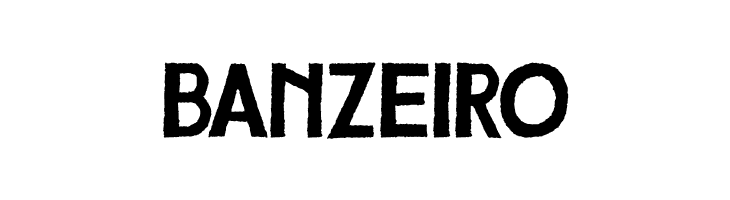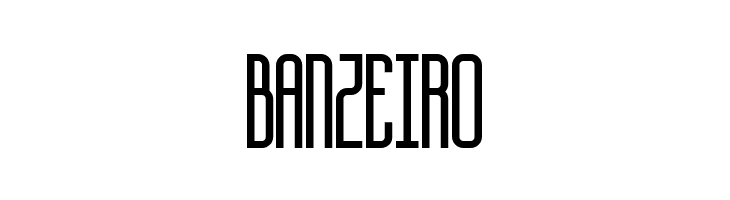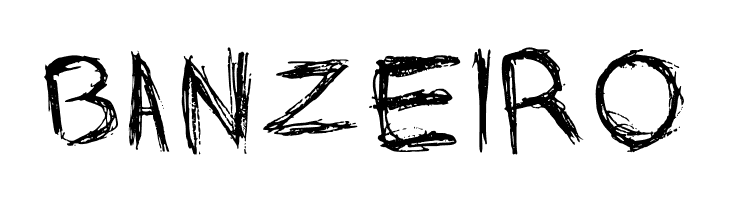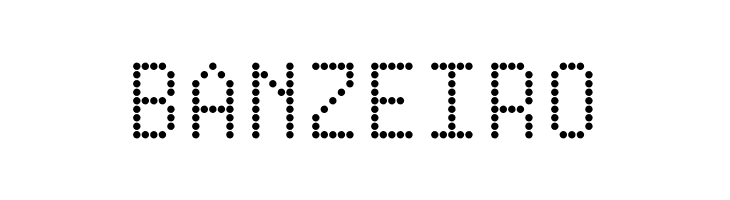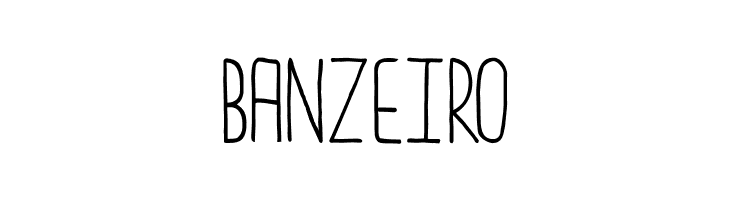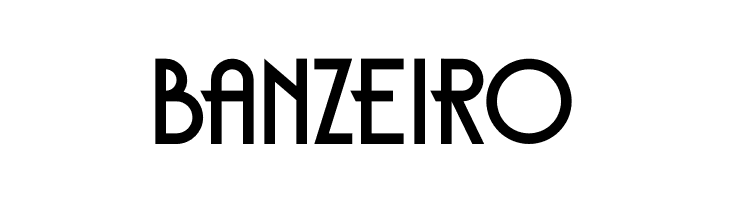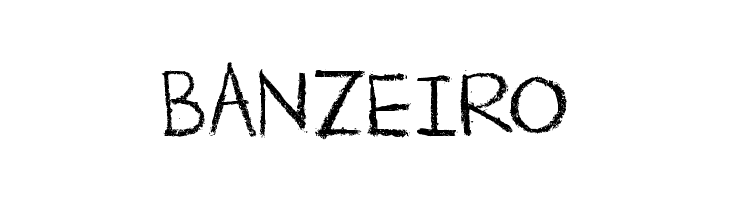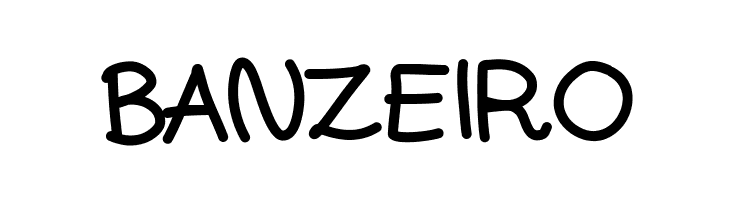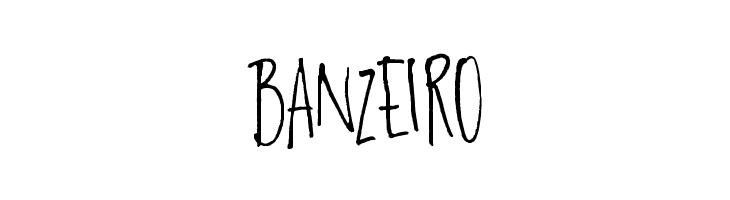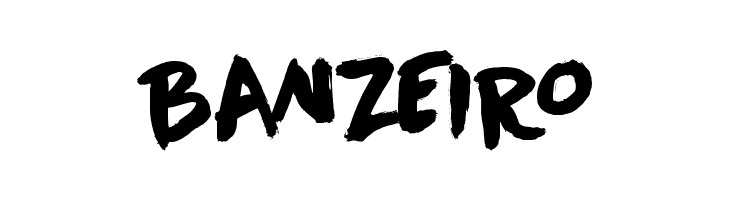
A playful, handwritten font with a casual and whimsical style.
Highly decorative and ornamental motif-based font.
Stencil-style DJ portraits as font glyphs.
A dynamic, slanted handwritten font with a casual elegance.
A playful, rounded font with a whimsical, handwritten style.
Animal illustrations form each character in a decorative, playful style.
A bold, brushstroke font with a hand-painted, artistic style.
A bold, brush-style font with dynamic strokes and flame-inspired numerals.
A bold, hand-drawn font with a dynamic and slightly distressed appearance.
A playful, crayon-textured font with a hand-drawn appearance.
A bold, brush-style font with an expressive, hand-painted look.
A bold, distressed brushstroke font with an edgy, dramatic style.
A bold, expressive brush-style font with dynamic strokes and textured appearance.
A hand-drawn, playful font with tall, slender letters and varying stroke widths.
A playful, bold font with a whimsical, hand-drawn style and monkey motifs.
A geometric, art deco-inspired font with bold, angular forms and a modern vintage appeal.
A playful, handwritten font with a casual and whimsical style.
A playful, handwritten-style font with bold, uniform strokes.
A bold, hand-painted style font with a vintage, rugged appearance.
A playful, bold, and rounded font with a hand-drawn, cartoonish style.
A playful, handwritten font with tall, narrow characters and a whimsical style.
A playful, hand-drawn font with bold, rounded characters and a whimsical style.
A playful, handwritten font with a whimsical and friendly style.
A rugged, hand-drawn font with bold, textured strokes and an expressive style.
A futuristic, geometric font with clean lines and rounded edges.
A modern, geometric sans-serif font with a clean and minimalist design.
A modern, geometric sans-serif font with a clean and balanced design.
A dotted, geometric font with a digital, retro aesthetic.
A dot matrix style font with a retro digital appearance.
A tall, narrow, and geometric font with a modern and sleek appearance.
A playful, modern font with elongated, curved characters and minimal contrast.